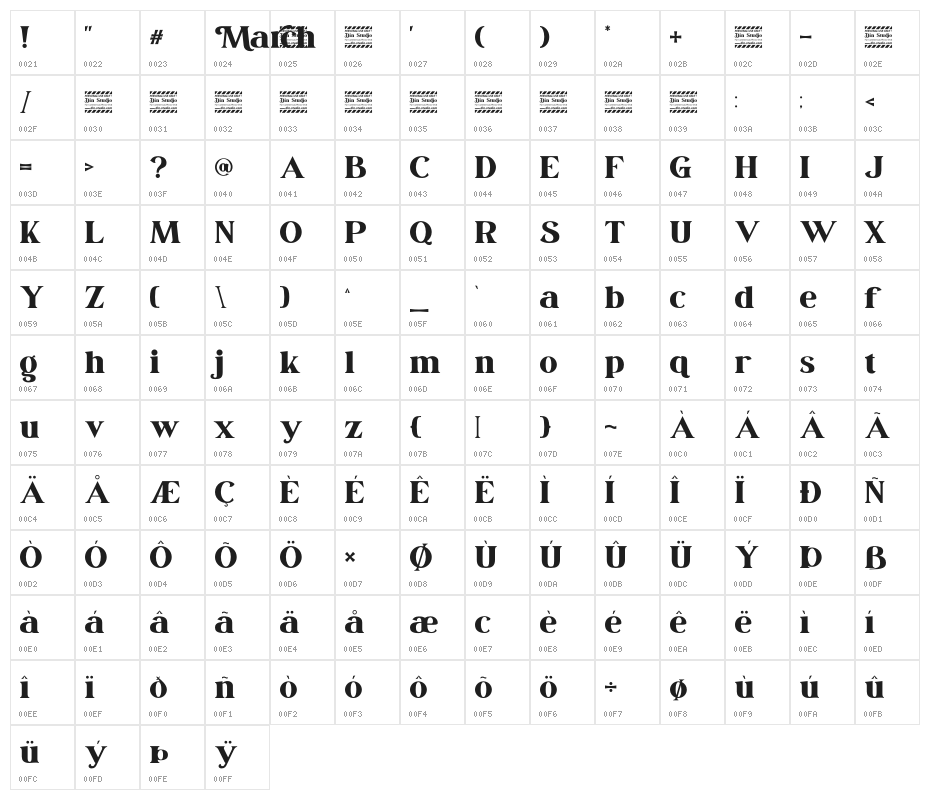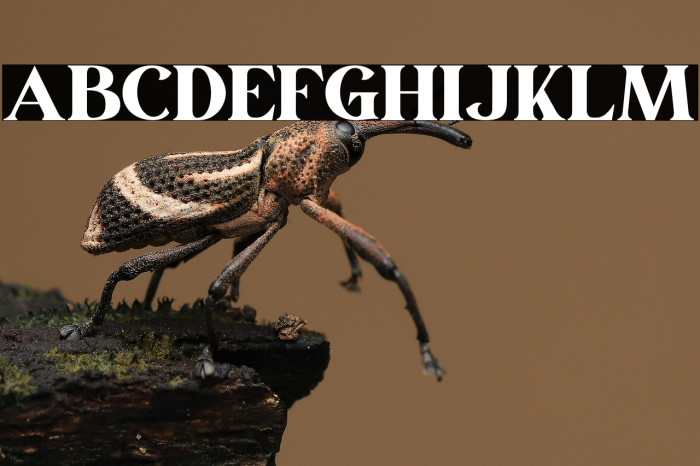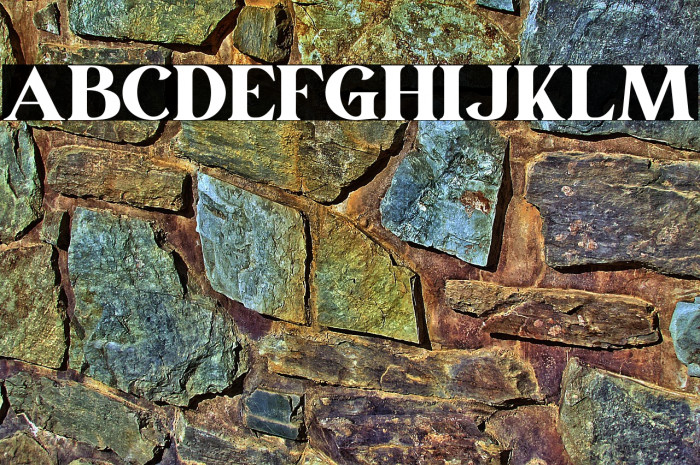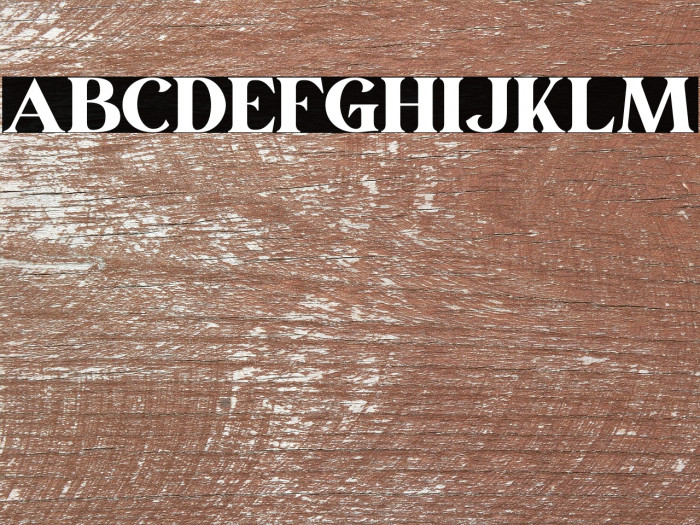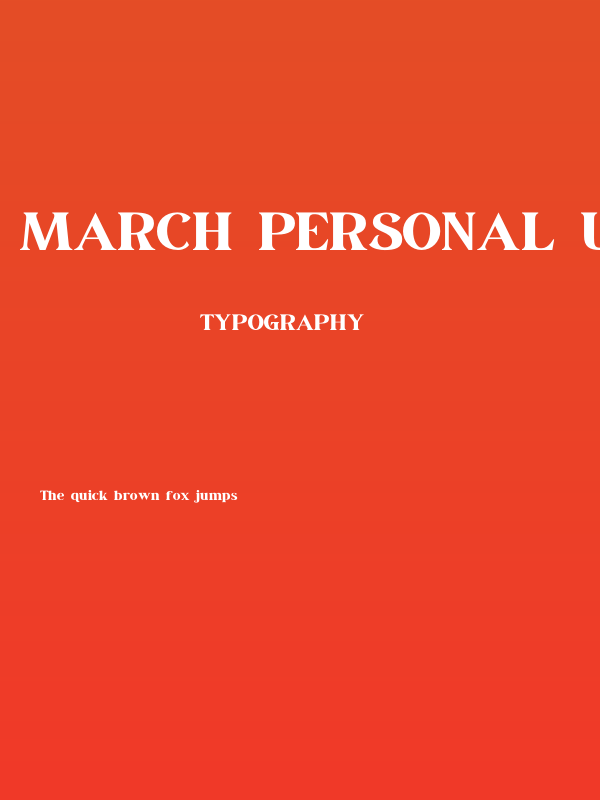
March Personal Use Font
March Personal Use Description
This font features a bold and striking serif style, characterized by its thick, prominent strokes and sharp, angular serifs. The uppercase letters exhibit a strong presence with a slightly condensed form, while the lowercase letters maintain a consistent weight, offering a harmonious balance. The numerals are equally bold, ensuring readability and impact. Special characters are designed with the same attention to detail, providing a cohesive look across all elements. This font's overall appearance is both classic and modern, making it versatile for various design applications.
| Overall Style | Modern Classic |
| Proposed Projects | Ideal for branding, editorial design, headlines, and logo creation where a bold statement is required. |